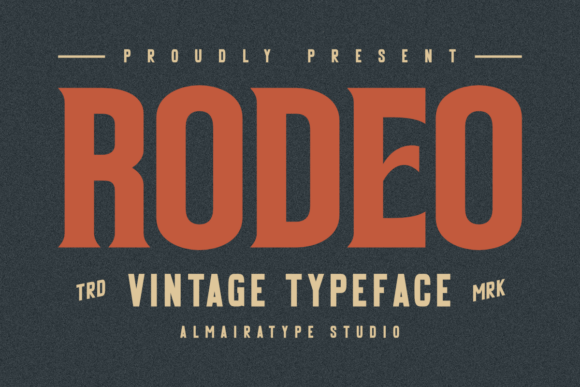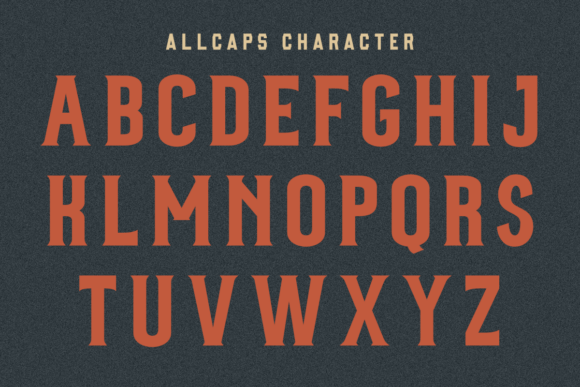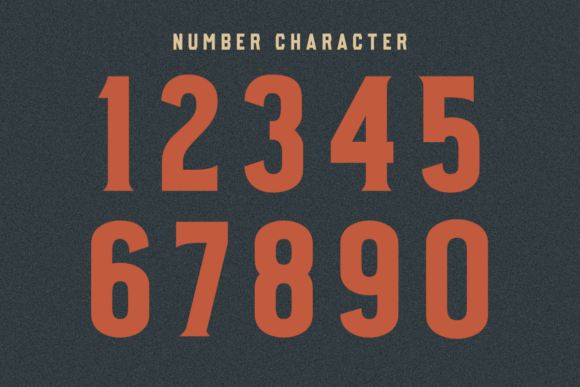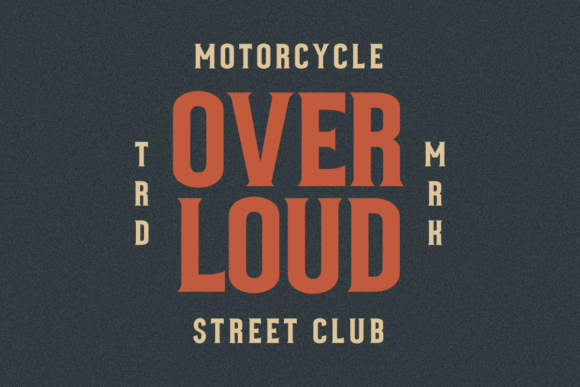
Rodeo Font
Rodeo is a bold vintage display typeface with strong western charm. Its thick, rugged letterforms are inspired by classic rodeo posters, giving it an authentic cowboy feel. Perfect for logos, signage, apparel, packaging, or event posters, Rodeo brings a striking, adventurous personality to your designs.